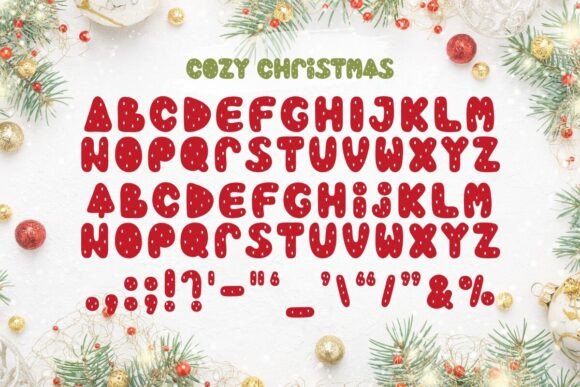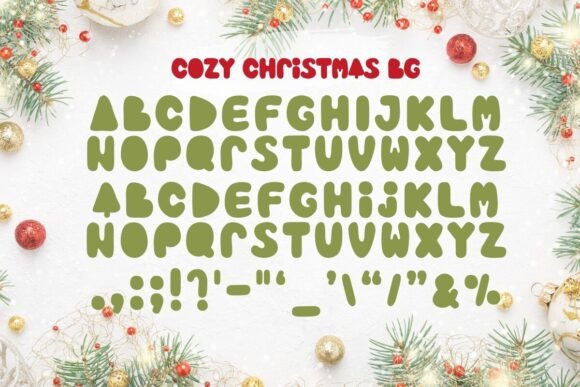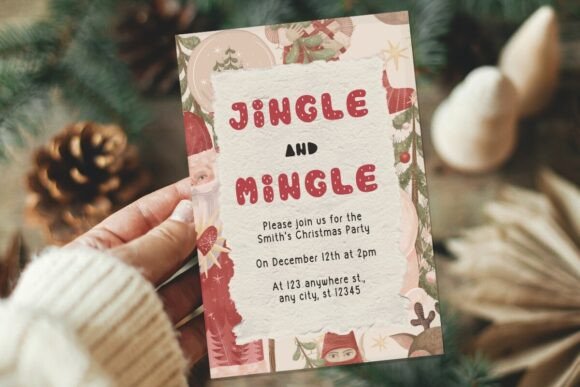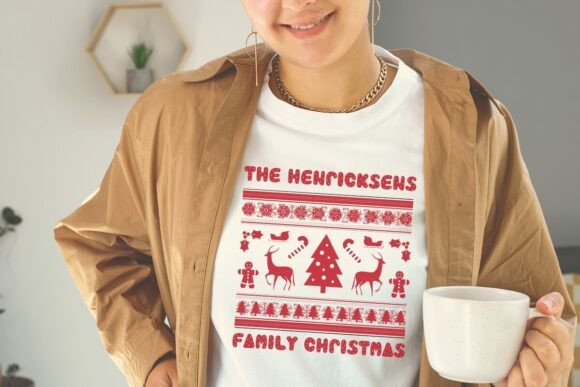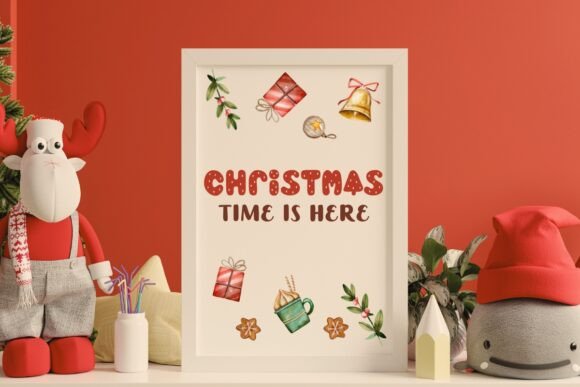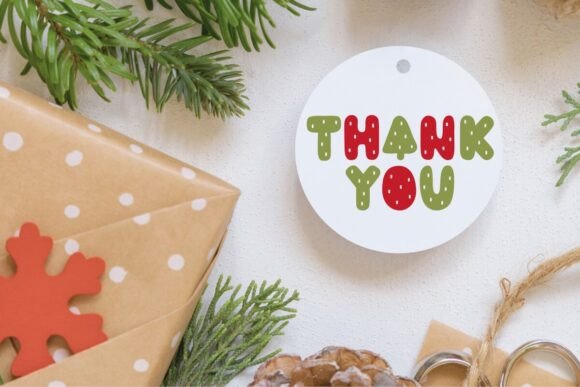
Introduction to Cozy Christmas Font
As the holiday season approaches, designers often find themselves in the midst of a creative frenzy, scrambling to find the perfect font to capture the magic of Christmas. Have you ever found yourself stuck on a project, desperately searching for a font that exudes warmth and cheer? If so, you’re not alone! That’s where the Cozy Christmas Font comes in – a groovy and playful display font designed to bring a smile to your face and a touch of holiday charm to your designs.
This delightful font features chunky, retro-inspired letters adorned with cute snow-like dots, making it a must-have design resource for any creative project. With its transparent background, you can easily layer it over festive patterns or use it as a standalone element to add a whimsical touch to your designs. Whether you’re working on holiday cards, product packaging, or Christmas decorations, the Cozy Christmas Font is sure to bring a high-quality, fun vibe to your creations.
Key Features of Cozy Christmas Font
- High-quality design with intricate details, perfect for adding a touch of elegance to your creative project.
- Unique characteristics include intricate patterns and ornaments, making it ideal for holiday-themed designs, invitations, and cards.
Honest Review: Cozy Christmas Font
I recently stumbled upon the Cozy Christmas Font and I’m excited to share my honest review with you. This font is perfect for adding a touch of warmth to any creative project, especially during the holiday season.
- ✨ The quality of the font is high, with crisp and clear letters that are perfect for printing or digital use.
- ⚠️ The font is only available in a single style, which may limit its versatility for some designers.
- ⚠️ The font may not be suitable for use in professional or high-end design projects due to its casual, handwritten feel.
Overall, I think the Cozy Christmas Font is a great addition to any designer’s toolkit. It’s perfect for adding a touch of personality to a design project and is easy to use due to its high-quality design and transparent background.
Tips for Getting the Most Out of Cozy Christmas Font
Use the Cozy Christmas Font on a transparent background to create a beautiful holiday card or invitation.
Combine the Cozy Christmas Font with other design elements to create a cohesive and festive design.
The Cozy Christmas Font is perfect for:
Creating holiday cards and invitations
Designing festive social media graphics
Adding a touch of warmth to your website or blog